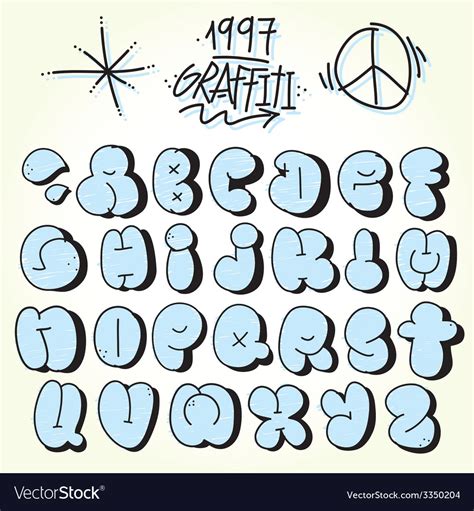
Bubble Font Graffiti. Click to find the best 21 free fonts in the bubble letters graffiti style. Web this bubble graffiti font can be used for a host of different content needs and projects.
Every font is free to download! Web looking for bubble letters graffiti fonts? Click to find the best 21 free fonts in the bubble letters graffiti style. Web this bubble graffiti font can be used for a host of different content needs and projects. Click to find the best 13 free fonts in the graffiti bubble style. Kelsi by misha vlasov is the familiar graffiti bubble style. Web unleash your creativity with our free bubble graffiti fonts. Web looking for graffiti bubble fonts? An excellent choice to add the.
An excellent choice to add the. Kelsi by misha vlasov is the familiar graffiti bubble style. Click to find the best 13 free fonts in the graffiti bubble style. Web looking for graffiti bubble fonts? Web unleash your creativity with our free bubble graffiti fonts. Click to find the best 21 free fonts in the bubble letters graffiti style. Web looking for bubble letters graffiti fonts? Web this bubble graffiti font can be used for a host of different content needs and projects. Every font is free to download! An excellent choice to add the.